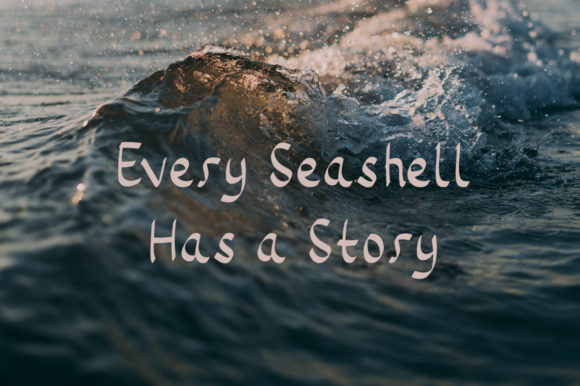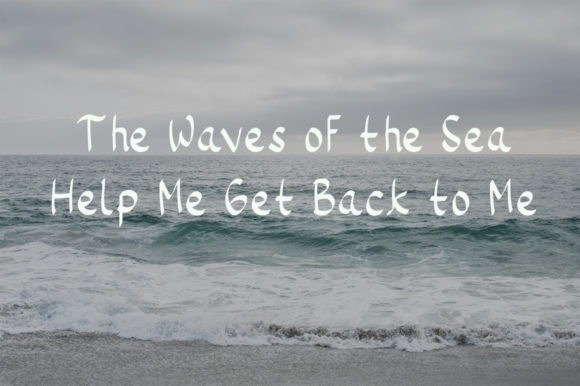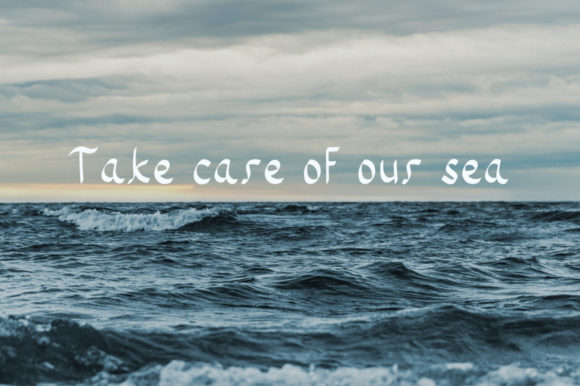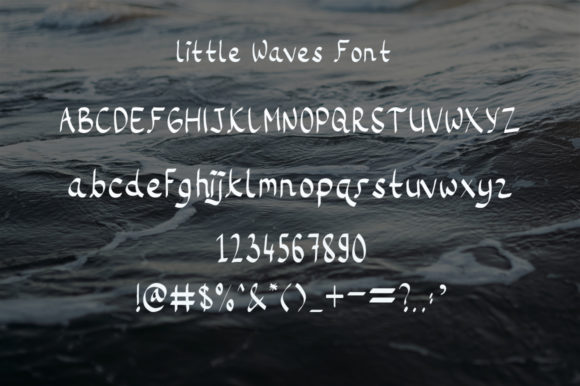
Introduction to Little Waves Font
Little Waves is a casual handwritten font, created by using a brush pen.
Clean and a little bit quirky, this font is the perfect fit for all of your logos, branding, social media, and crafty DIY projects .
Key Features of Little Waves Font
Why Choose Little Waves Font?
Little Waves Font offers exceptional quality and versatility, making it a valuable addition to your design toolkit. Whether you’re creating for personal projects or commercial use, Little Waves Font delivers professional results.